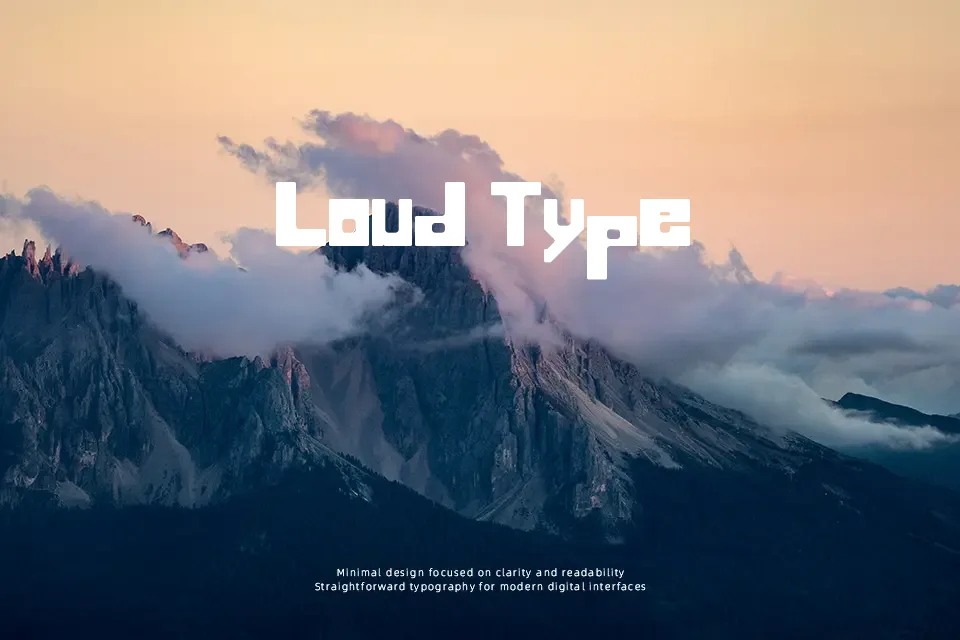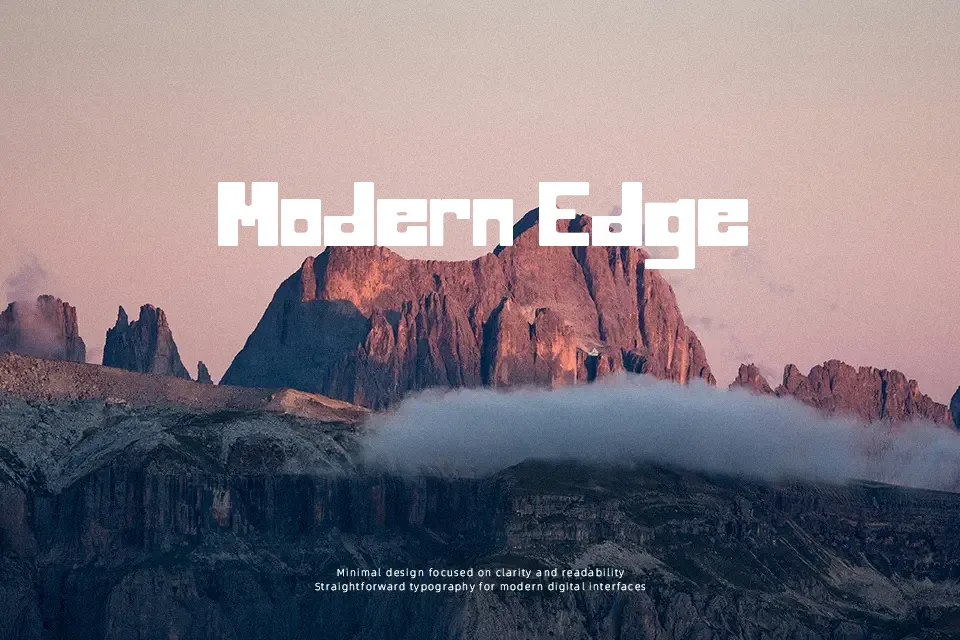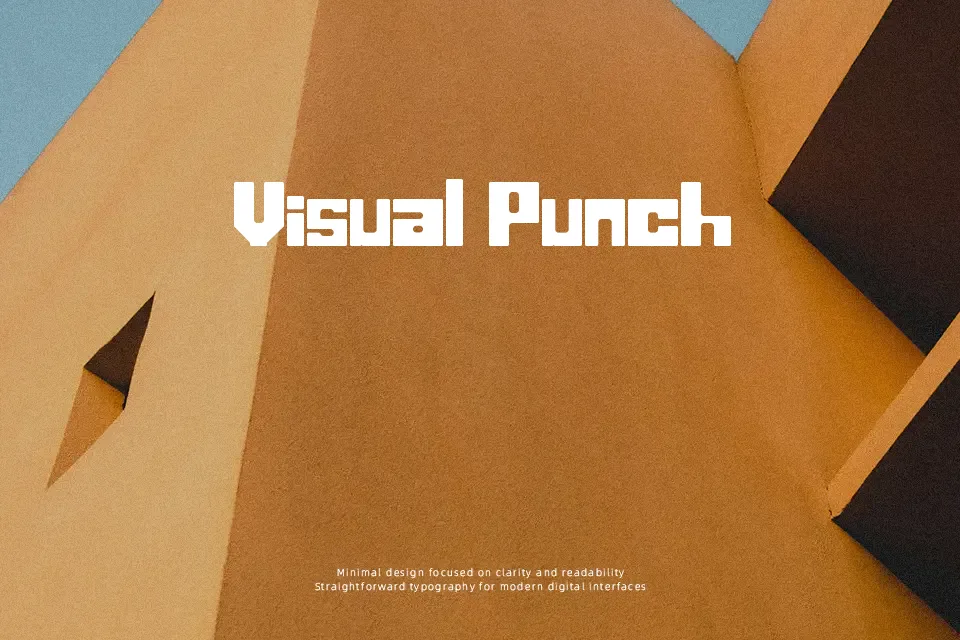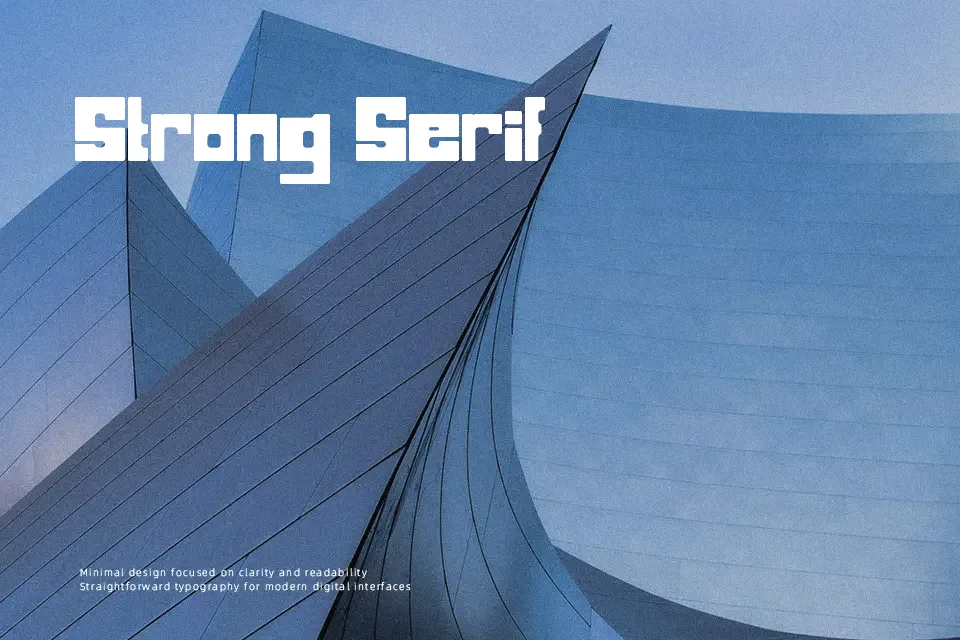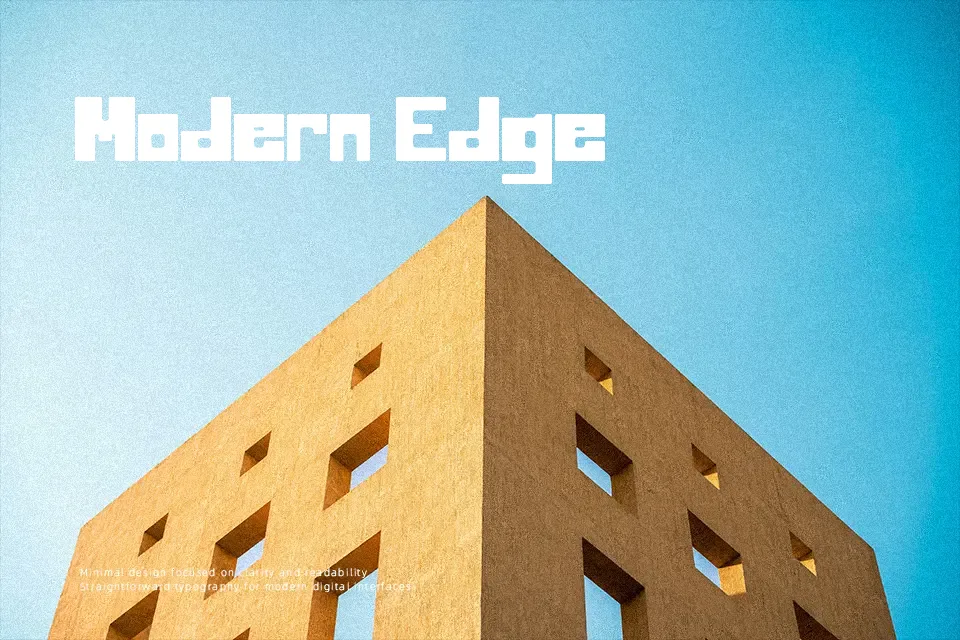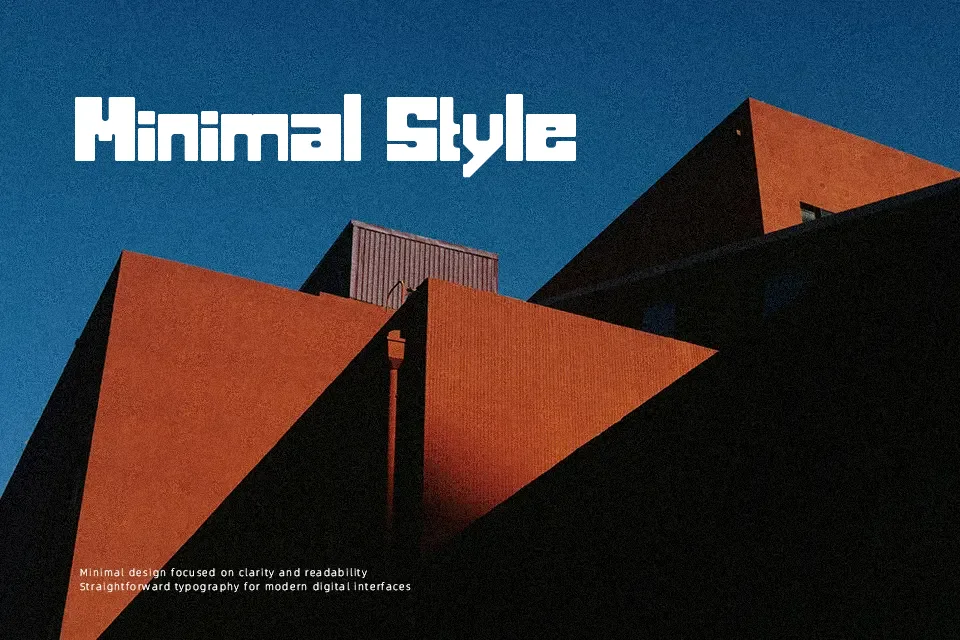
Blocking Font
Blocking Font commands attention through its heavy, chunky letterforms and distinct retro geometry. The structure features unusually thick strokes combined with tight spacing, giving words a solid, brick-like appearance that dominates the canvas. It carries a distinctly groovy and vintage attitude, shifting away from modern minimalism toward something far more expressive. This typeface shines when deployed in massive headlines, striking album covers, or nostalgia-driven merchandise where the text acts as the primary visual element. However, its massive weight and unconventional shapes severely reduce legibility at small sizes. Designers should avoid using it for body copy, lengthy paragraphs, or formal corporate interfaces, as the dense character spacing will quickly overwhelm the reader and muddle the message.
Dominant poster headlines
Retro-themed merchandise
Bold packaging typography
Eye-catching social media graphics
Small interface elements
Long editorial body text
Formal corporate documents
Perfect for branding, headline, and packaging, with a bold and decorative style.